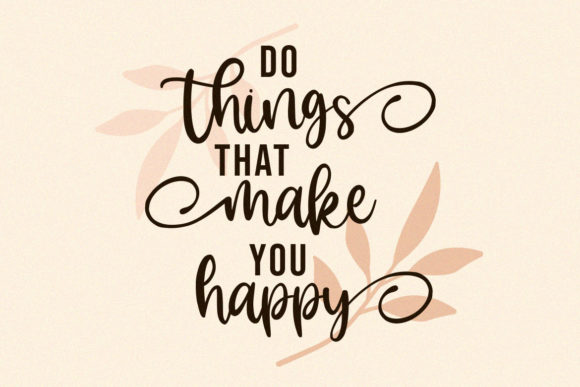
Scarlette Font
db-ku.com - Script & Handwritten -- Scarlette is sweet and romantic handwritten script font that is made with love and It has a casual, elegant and lovely touch, perfect for various design project that you wish to create. This font Is PUA encoded which means you can access all of the glyphs and swashes with ease!